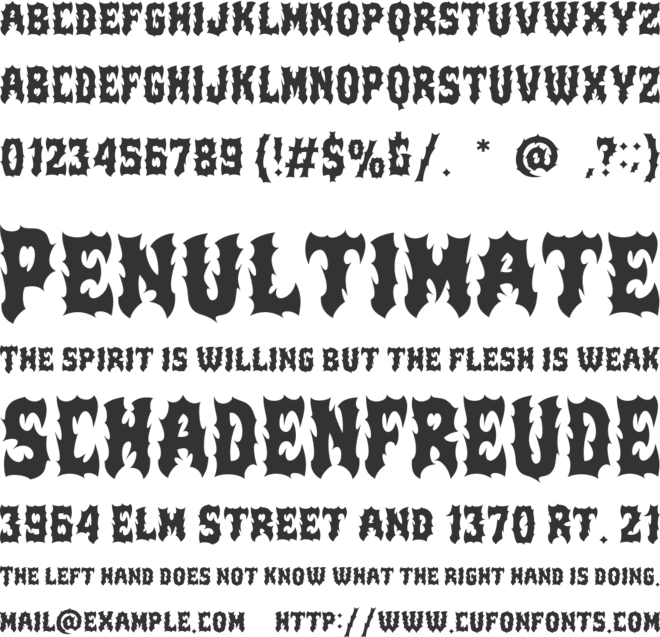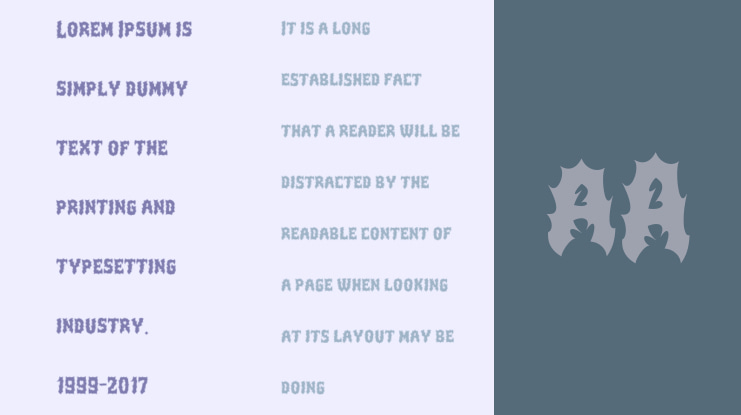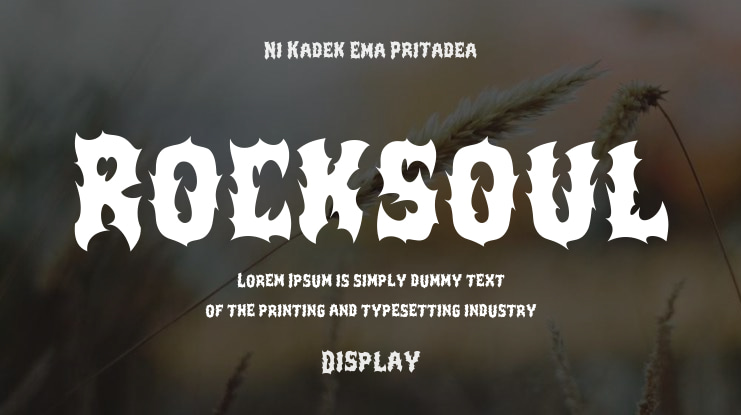
Rocksoul Font
Ni Kadek Ema Pritadea
💀 Rocksoul Typeface — A Dark Metal Font Born for the Underground
Unveil the raw power of Rocksoul Typeface — a brutal, high-impact display font forged for the world of underground music, extreme visuals, and fearless design. Created to echo the spirit of heavy metal, hardcore, and metalcore culture, Rocksoul is more than just a typeface — it’s a statement.
This font embodies a fat-bodied structure merged with sharp, piercing thorn-like extensions, creating a fierce, aggressive impression at first glance. Each letter feels alive — shaped by the dark aesthetic of underground gig posters, rebellious band merchandise, and metal album art.